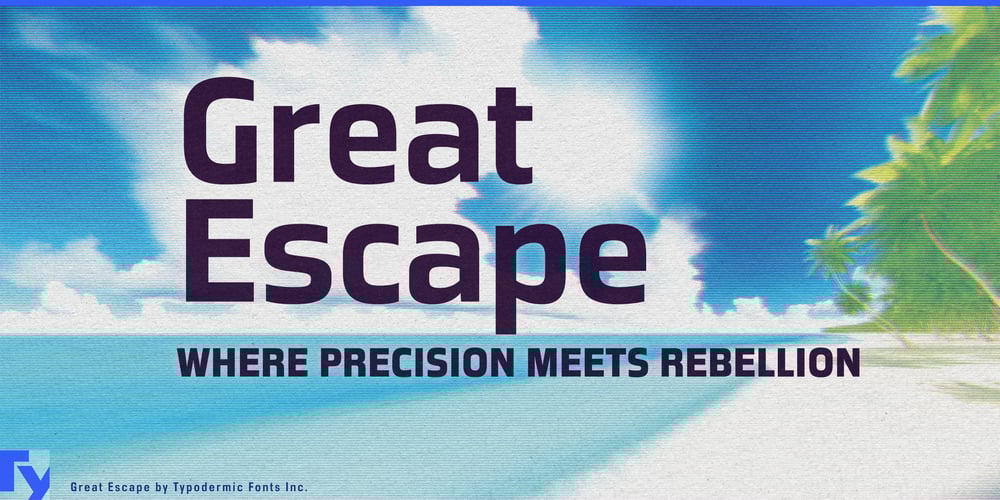
Great Escape Font Family was designed by Ray Larabie, Chikako Larabie and published by Typodermic. Great Escape contains 28 styles and family package options. Prepare for typographic liberation with Great Escape, a font that doesn’t just break free from convention—it redefines the very notion of typographic freedom. This isn’t just a typeface; it’s a masterclass in modern design, a bold declaration that the future of typography has arrived, and it’s more streamlined and powerful than we ever imagined.Great Escape is the lovechild of geometric precision and organic fluidity. Its letterforms are a perfect fusion of hard angles and soft curves, creating a visual rhythm that’s as hypnotic as it is functional. Each character is a tiny work of art, meticulously crafted to balance authority with approachability, rationality with style. But don’t let its elegant appearance fool you—Great Escape is a typographic powerhouse. Its compact design is a testament to the power of efficient engineering, packing maximum impact into minimal space. It’s the typography equivalent of a supercar: sleek, precise, and capable of delivering your message with breathtaking speed and style.With 28 styles at your fingertips, Great Escape is a design system. Seven weights, two widths, and a full set of italics give you the freedom to fine-tune your typography with surgical precision. From whisper-quiet thin weights that speak of refinement and luxury, to bold cuts that command attention like a digital town crier, Great Escape has a voice for every occasion. This typeface isn’t content to stay within borders. Supporting a vast array of Latin-based European languages, Great Escape is a true polyglot, ready to deliver your message with impact whether you’re designing for the tech hubs of Silicon Valley or the fashion houses of Milan. It’s the linguistic equivalent of a master key, unlocking communication across cultures and continents.In a world where attention is the most precious commodity, Great Escape is your secret weapon. Use it for branding, and watch as it transforms your logo into an icon of modernity. Deploy it in user interfaces, and see how it enhances usability while adding a touch of sophisticated cool. From annual reports to app designs, Great Escape elevates every project it touches. So, are you ready to break free from the constraints of ordinary typography? To embrace a typeface that doesn’t just keep pace with the future—it defines it? Great Escape isn’t just waiting for you—it’s already there, in that sleek, geometric future where every pixel is an opportunity and every letter is a statement.Choose Great Escape, and give your designs the voice they deserve: clear, confident, and unquestionably contemporary. It’s time to make your great escape from typographic mediocrity.